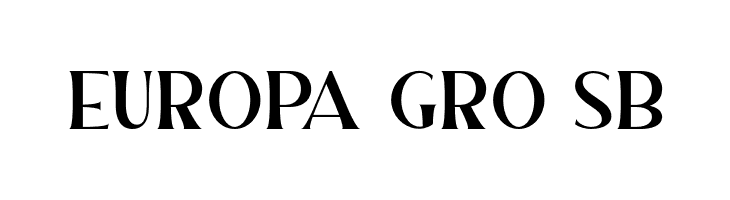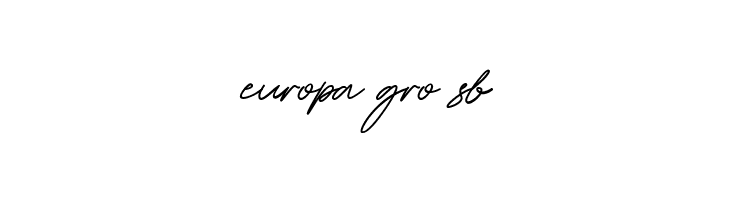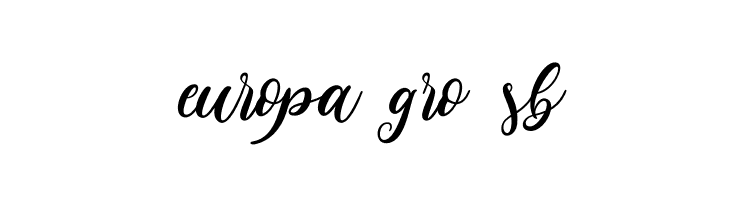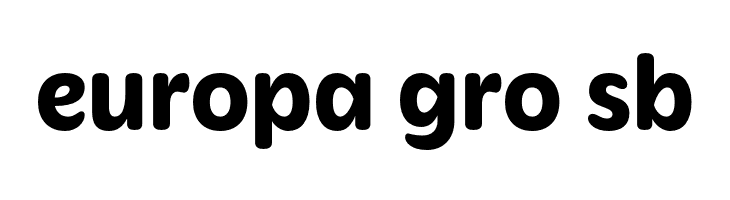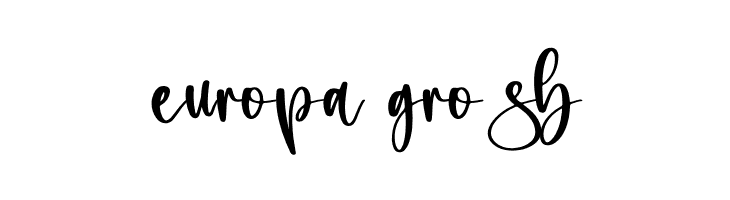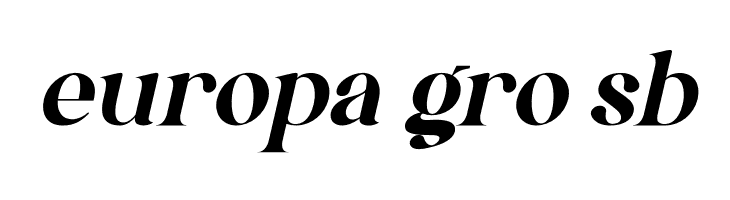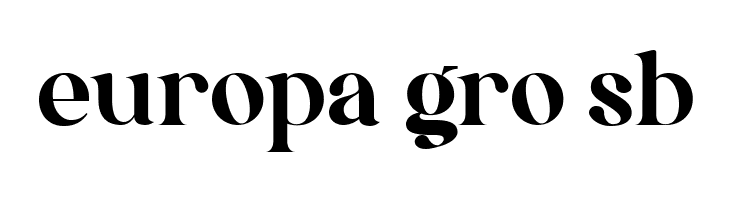
A modern, elegant font with elongated letterforms and sharp edges.
A sophisticated cursive script font with a seamless, flowing style.
A graceful and elegant script font with flowing curves and artistic flair.
A bold, rounded font with a modern and approachable style.
A modern, rounded sans-serif font with a clean and approachable style.
An elegant and flowing script font with ornate uppercase letters and harmonious lowercase characters.
A lively and expressive handwritten font with fluid strokes and playful elegance.
An elegant italic font with medium contrast and a modern twist.
A classic serif font with high contrast and elegant strokes.
A flowing, cursive font with elegant, interconnected strokes.